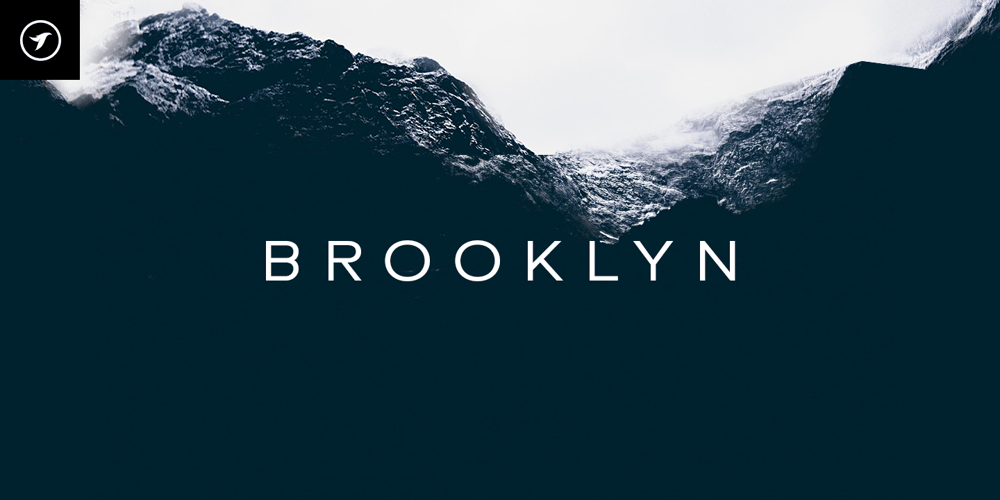
Brooklyn Font Family was designed by Jean Johnson and published by Designova. Brooklyn contains 8 styles and family package options. BROOKLYN is a modern Sans-Serif typeface inspired by classic geometric typefaces that keep the minimalism at its level best. BROOKLYN will be perfect for creating nicely looking headlines (add some letter spacing and it will amaze you) that you always find in fashion web stores and minimal portfolio websites. You can create stunning logotypes and branding designs with this typeface (just see demo graphics to get a basic idea of how it looks).BROOKLYN now comes with a total of 8 fonts in the family, with four weights (NORMAL / SEMI BOLD / BOLD / HEAVY) and italic versions of all four weights. FEATURES:BROOKLYN font family includes a collection of 8 fonts in total, with four upright weights and Italic equivalents of all four weights as follows: Normal Italic SemiBold Italic Bold Bold Italic Heavy Heavy Italic 239 GLYPHS INCLUDED:Handcrafted and designed with powerful OpenType features in mind, each weight includes extended language support with Western European, Central European, and South Eastern European sets. A total of 239 glyphs are available.EXTENSIVE LANGUAGE SUPPORT:Afrikaans • Albanian • Asu • Basque • Bemba • Bena • Catalan • Cebuano • Chiga • Cornish • Corsican • Danish • Dutch • English • Estonian • Filipino • Finnish • French • Friulian • Galician • German • Gusii • Ido • Indonesian • Interlingua • Interlingue • Irish • Italian • Javanese • Jju • Kabuverdianu • Kalaallisut • Kalenjin • Kinyarwanda • Kurdish • Ligurian • Lojban • Lombard • Low German • Luo • Luxembourgish • Luyia • Machame • Makhuwa • Makhuwa-Meetto • Makonde • Malagasy • Malay • Manx • Morisyen • North Ndebele • Northern Sotho • Norwegian Bokmål • Norwegian Nynorsk • Nyanja • Nyankole • Occitan • Oromo • Portuguese • Rejang • Romansh • Rombo • Rundi • Rwa • Samburu • Sango • Sangu • Sardinian • Scottish Gaelic • Sena • Shambala • Shona • Slovenian • Soga • Somali • South Ndebele • Southern Sotho • Spanish • Sundanese • Swahili • Swati • Swedish • Swiss German • Taita • Taroko • Teso • Tsonga • Tswana • Turkmen • Vunjo • Walloon • Welsh • Western Frisian • Wolastoqey • Xhosa • Zhuang • Zulu